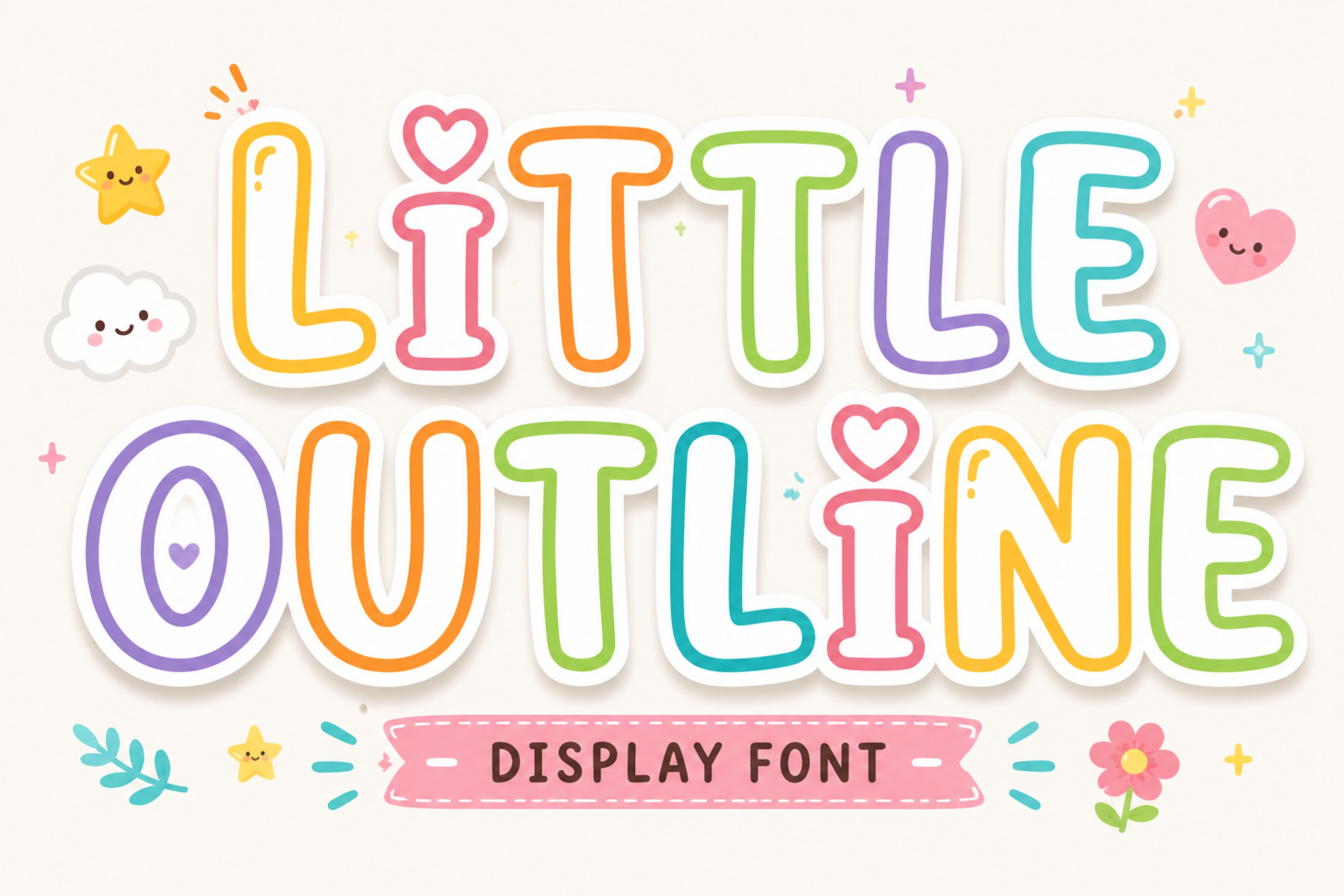
Little Outline Font
Meet Little Outline, a fun and adorable display font designed for playful and creative projects. Featuring rounded outlined letters, friendly shapes, and cute heart accents, this typeface brings a cheerful handmade feeling to your designs.
Its clean outline style makes it especially versatile for children’s products, nursery designs, T-shirts, stickers, invitations, posters, logos, packaging, classroom projects, and Cricut crafts. The colorful and youthful character works beautifully for both print and digital designs.
Whether you're creating a cute kids' collection, personalized merchandise, classroom decorations, or playful branding, Little Outline adds a charming and contemporary personality to every project.
Kids & children's designs
Nursery decor
Baby shower invitations
Birthday invitations
T-shirt designs
Kids apparel
Stickers & decals
Greeting cards
Posters & banners
Scrapbooking
Party decorations
Stationery
Packaging design
Logos & branding
Cricut & Silhouette projects
Digital crafts
Print-on-demand products
Classroom designs